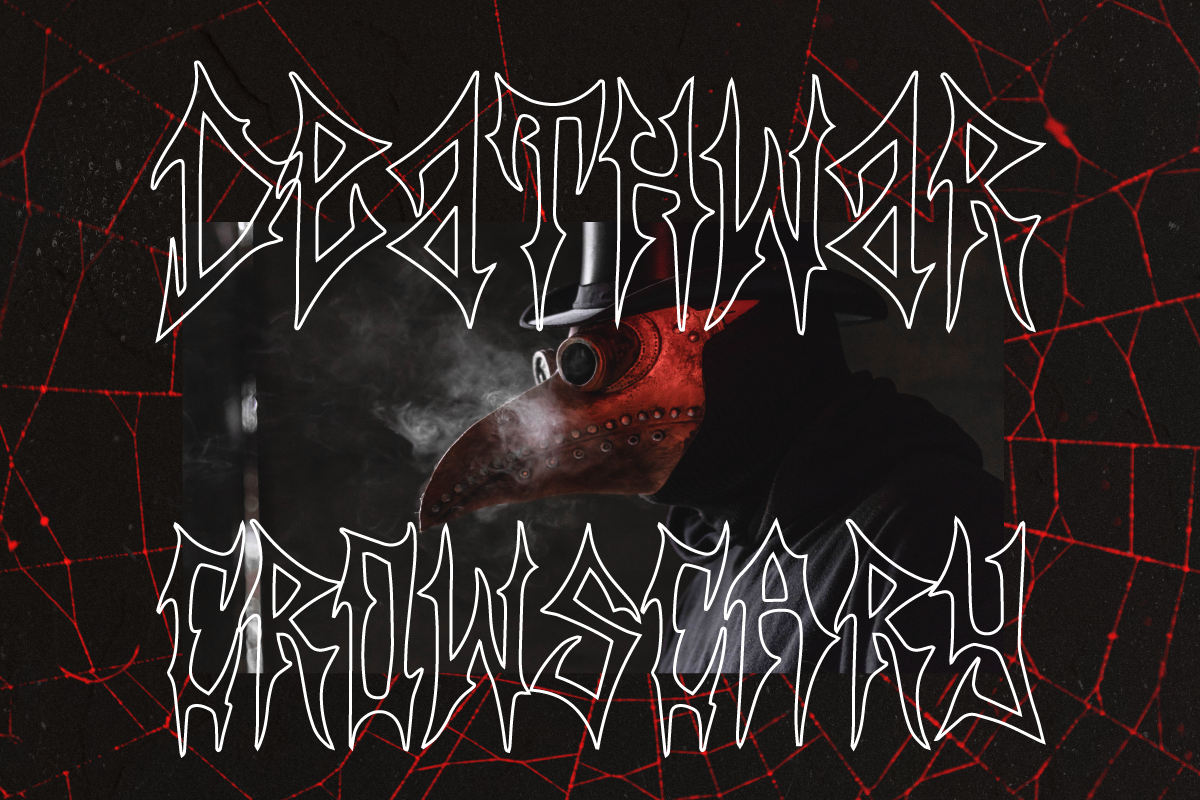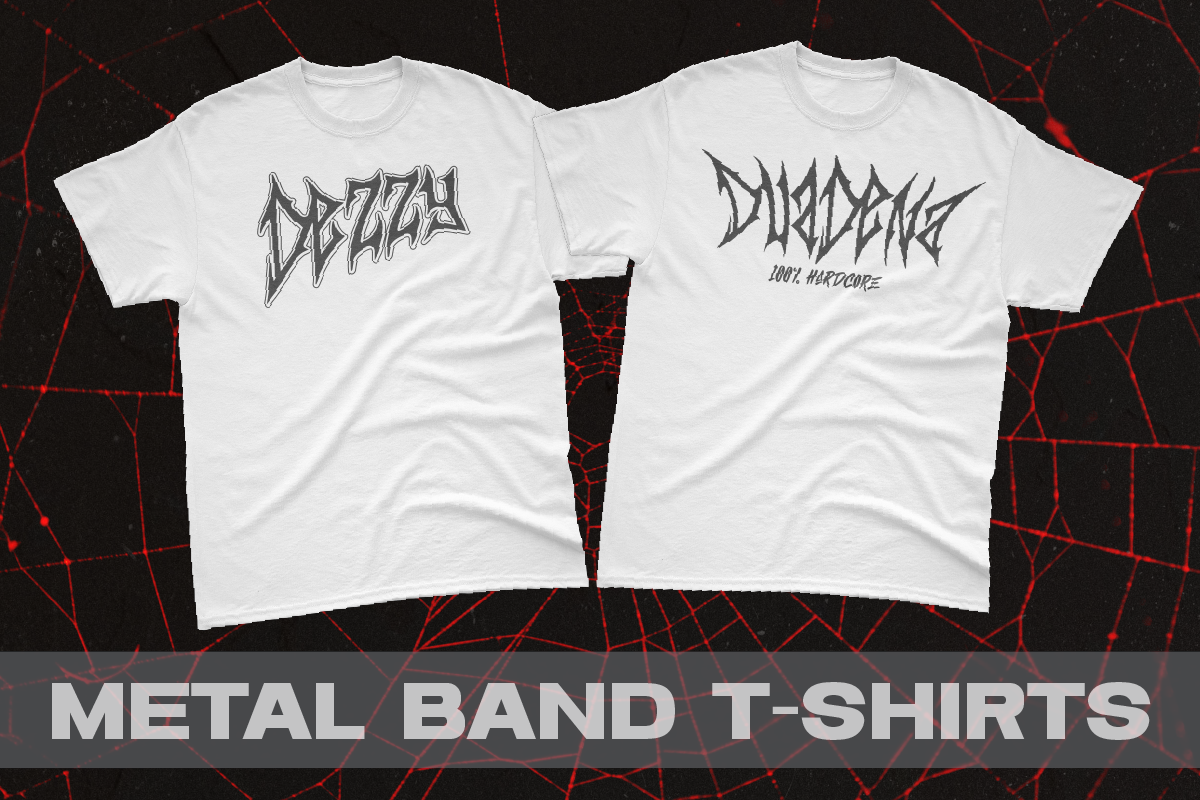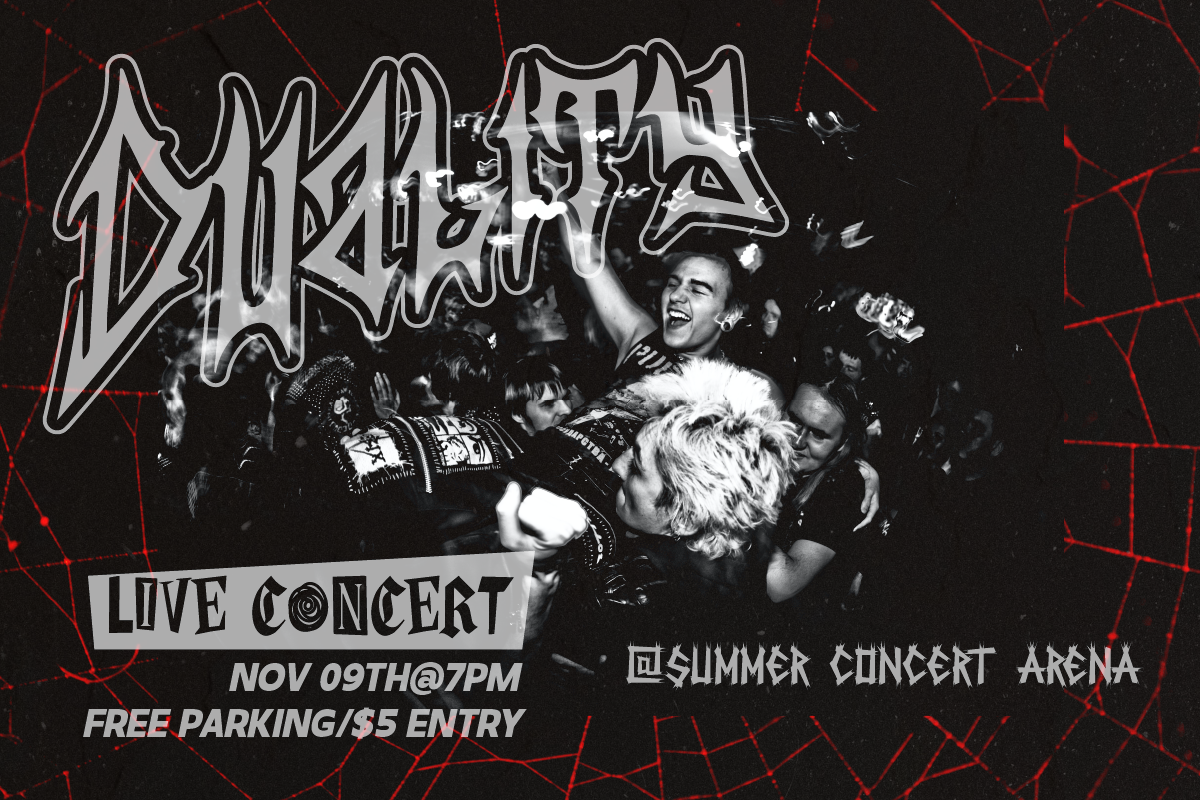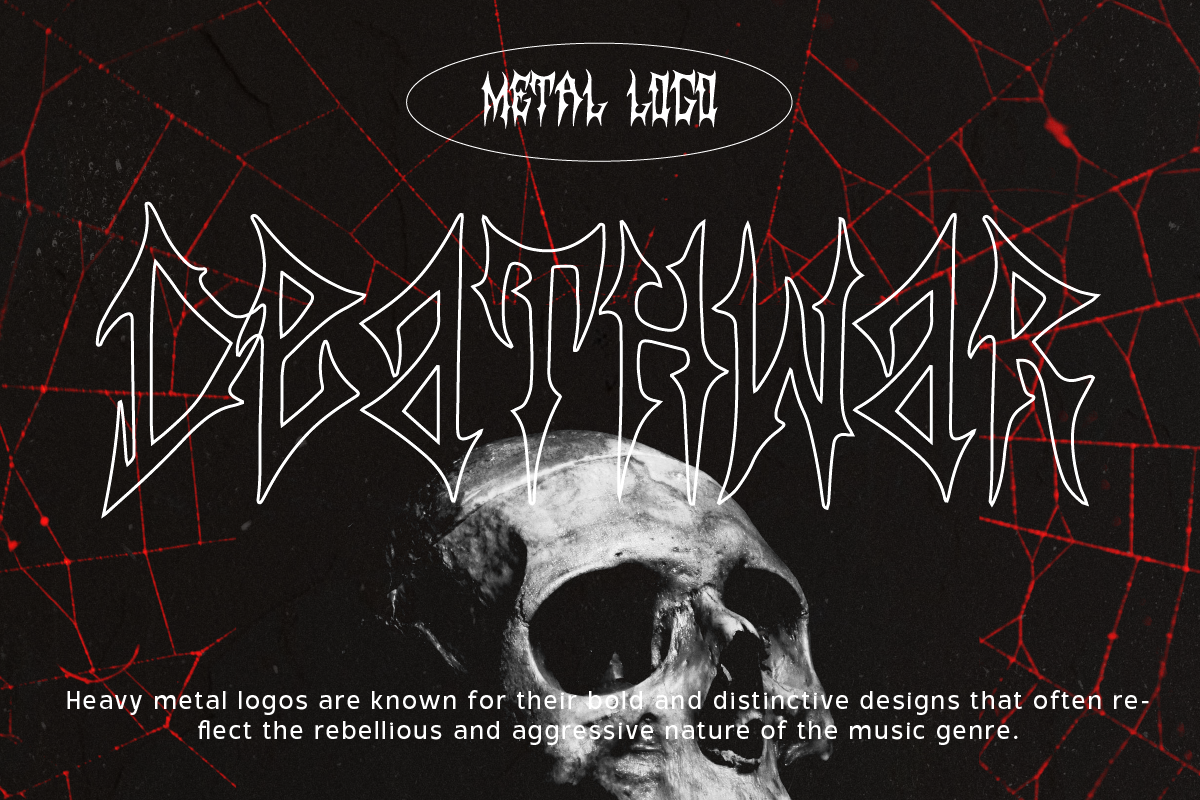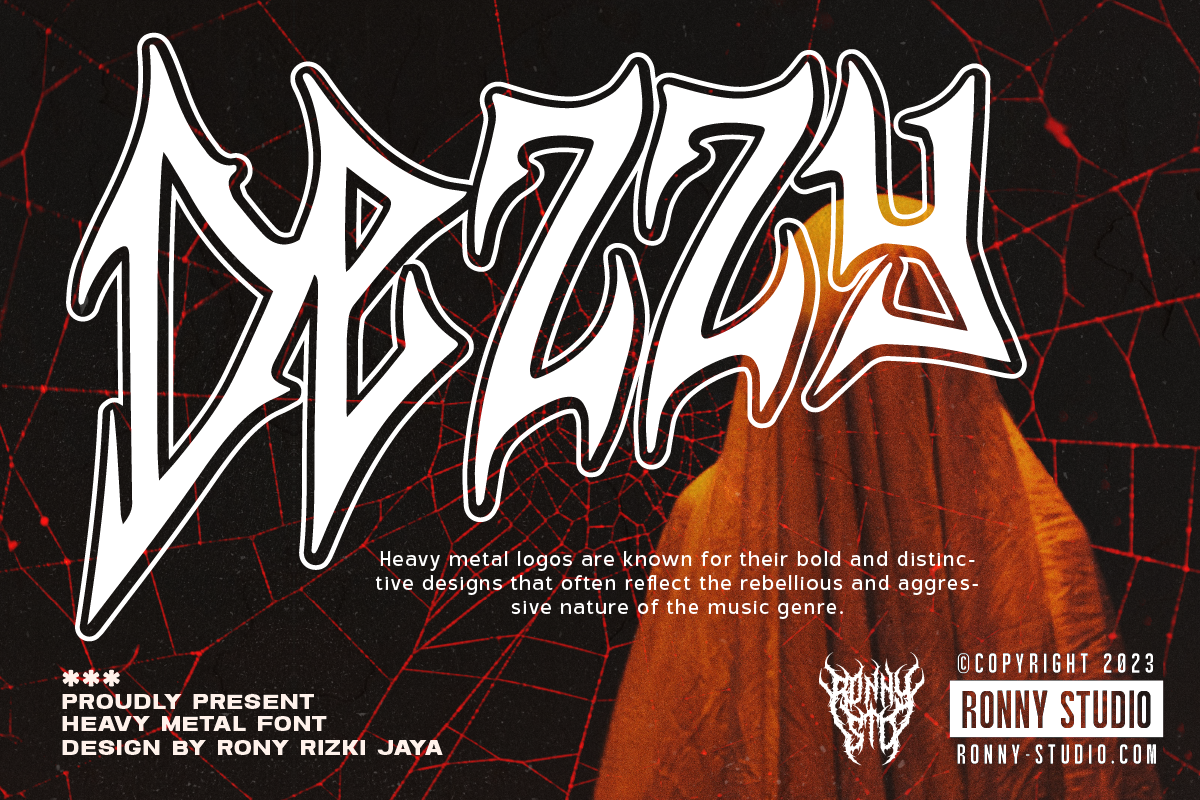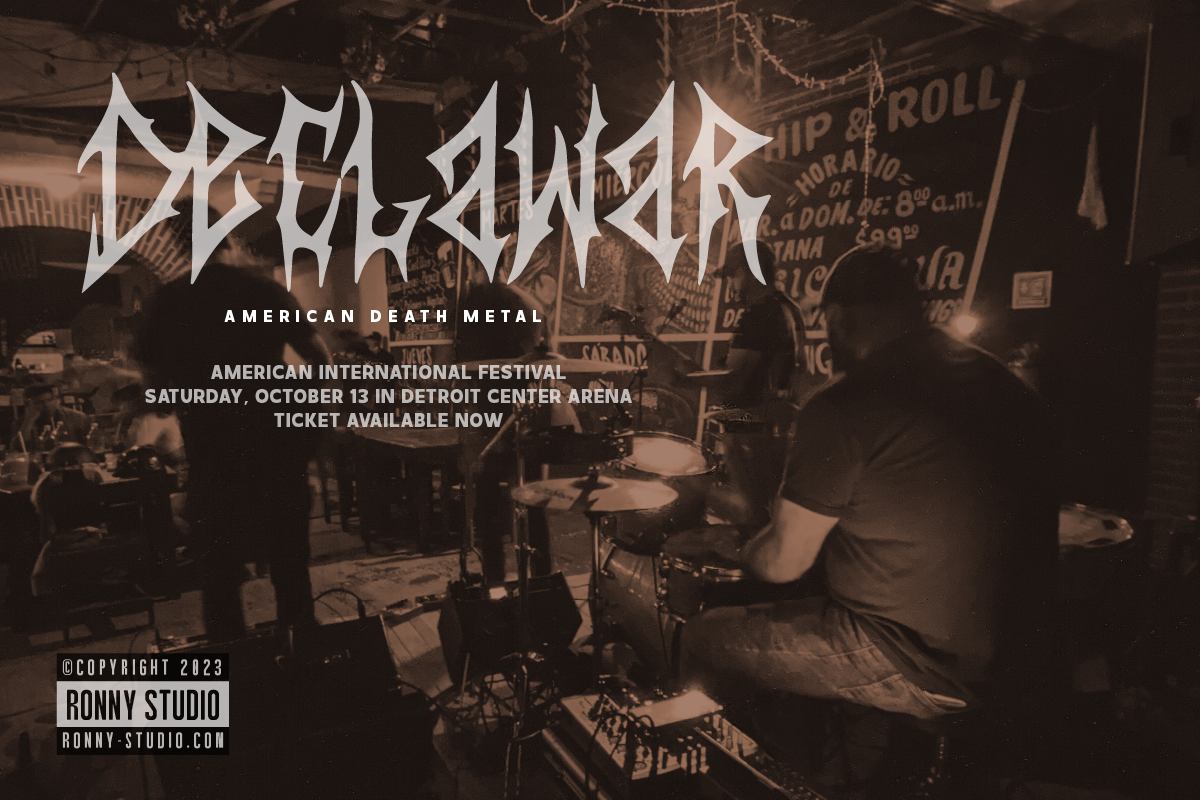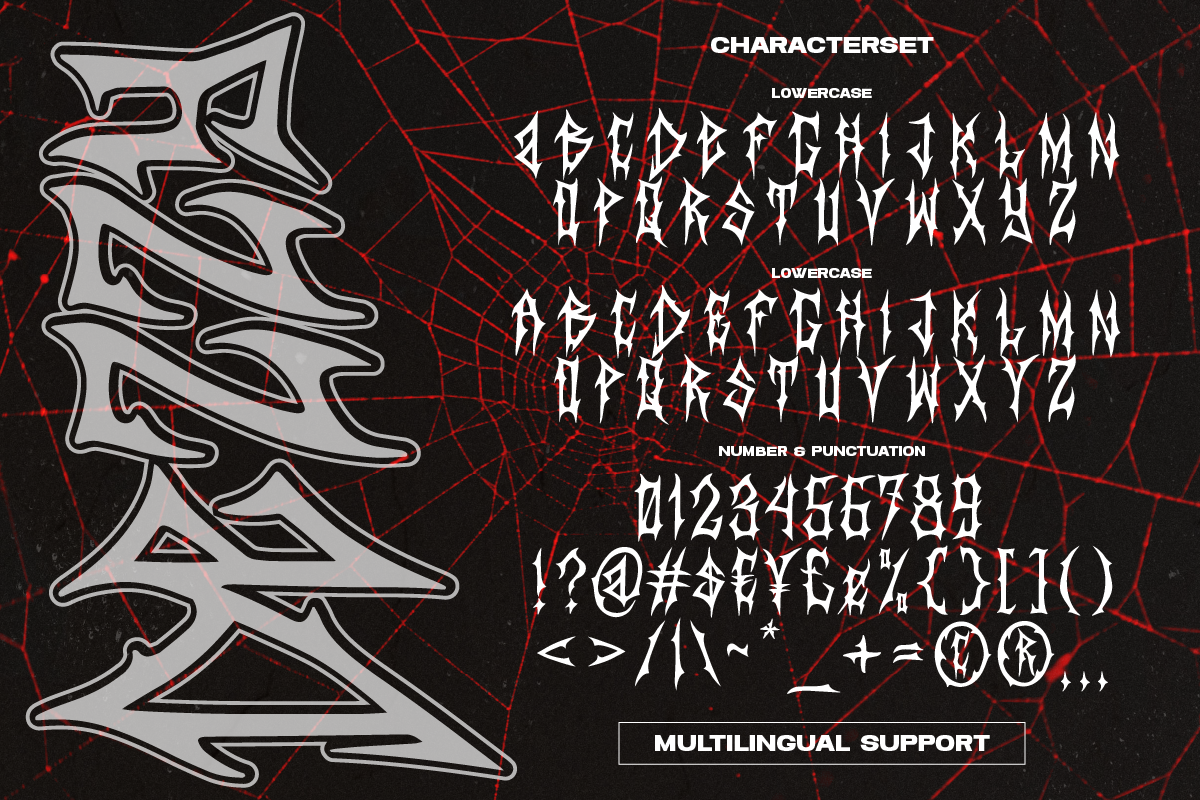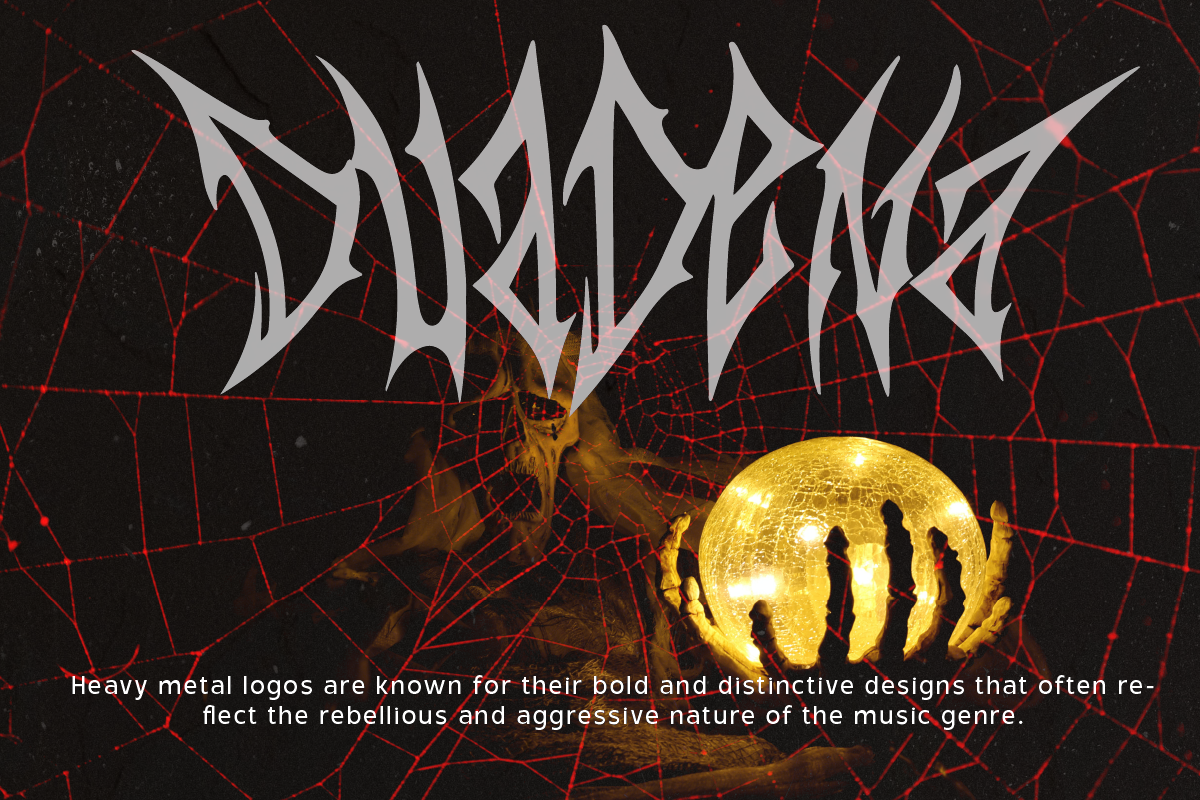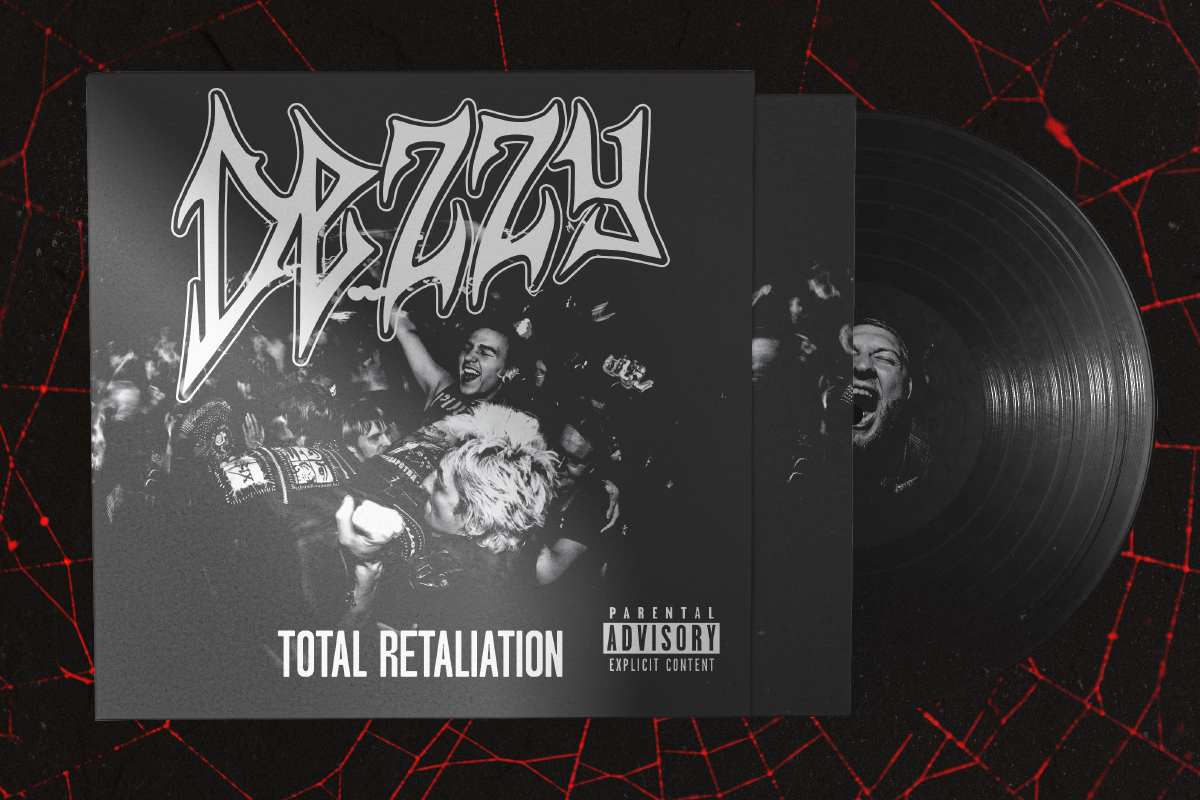
Dezzy Heavy Metal Font
Dezzy – Heavy Metal Font for Bold and Powerful Design Projects
Introducing Dezzy, a bold and aggressive heavy metal font designed to infuse your creative projects with power and attitude. Inspired by the raw energy of metal music, Dezzy features sharp, jagged letterforms and an intense aesthetic perfect for band logos, album covers, merchandise, posters, and extreme branding.
With its high-impact design and rebellious spirit, Dezzy ensures your typography stands out with boldness and authority. Whether you're working on music promotion, event posters, or product packaging, this font adds a hardcore edge to your work.
- Heavy Metal Style – Sharp, bold characters with a rugged, rebellious look.
- Complete Character Set – Includes uppercase, lowercase, numbers, punctuation, and multilingual support.
- PUA Encoded – Full access to special characters and alternates without extra design software.
- Versatile Applications – Perfect for band branding, posters, merchandise, social media graphics, and more.
- Metal band logos and branding
- Album covers, merchandise, and event posters
- Extreme sports branding and edgy packaging
- Gothic and dark-themed design projects
- Social media marketing for metal and rock music
- Projects demanding a bold, aggressive, and standout typography style
Fuel your designs with the raw energy and attitude of Dezzy.